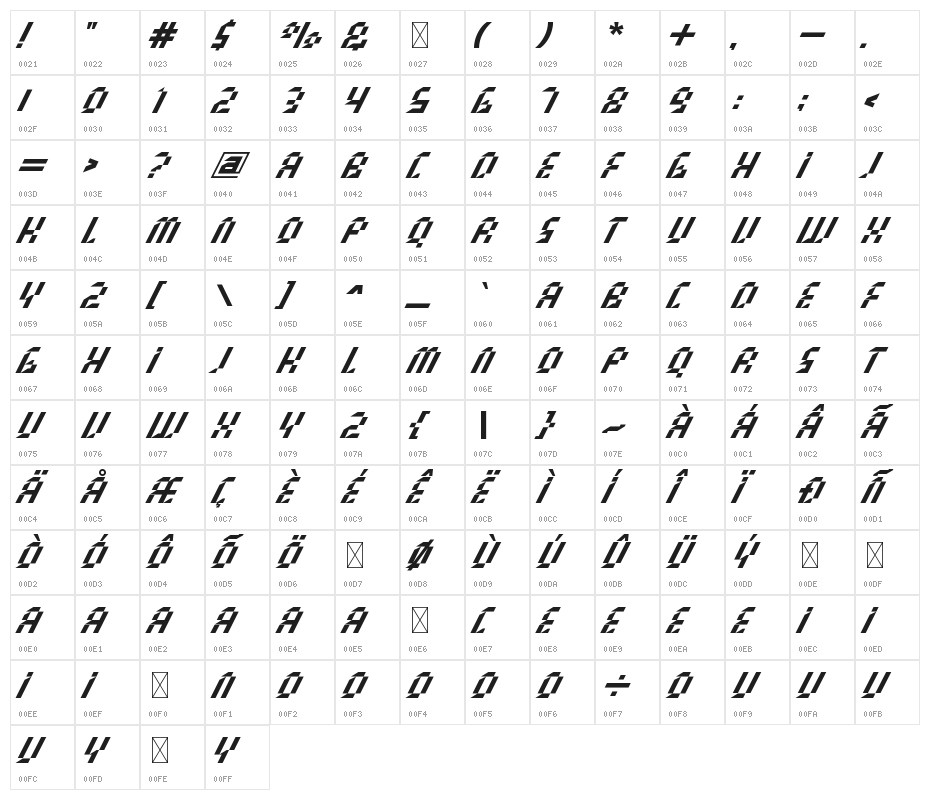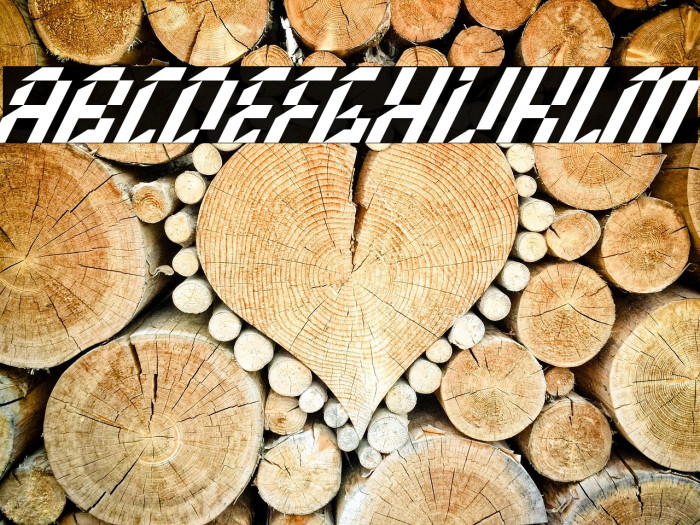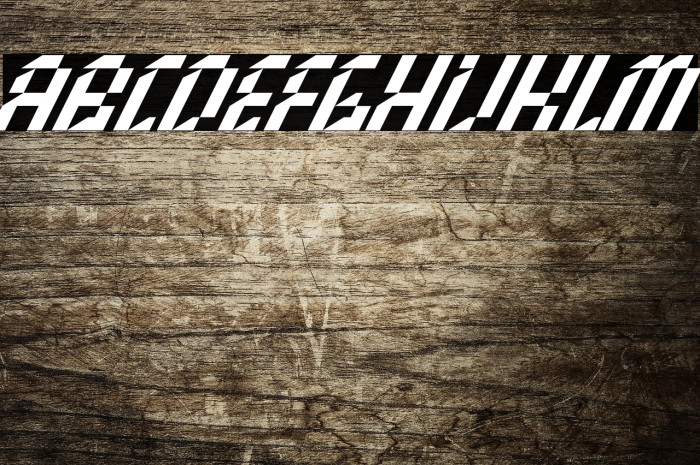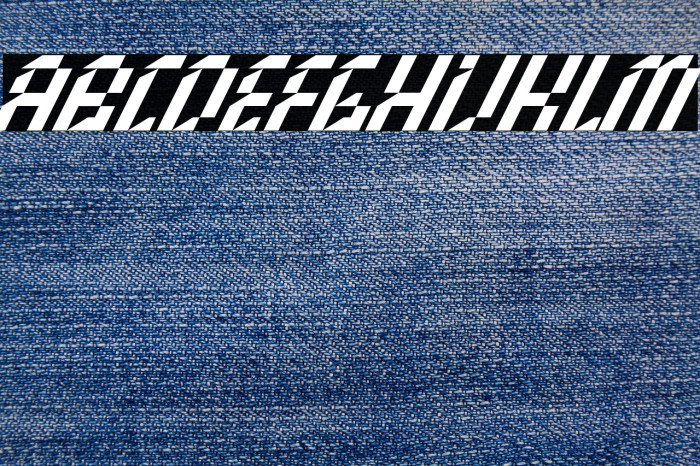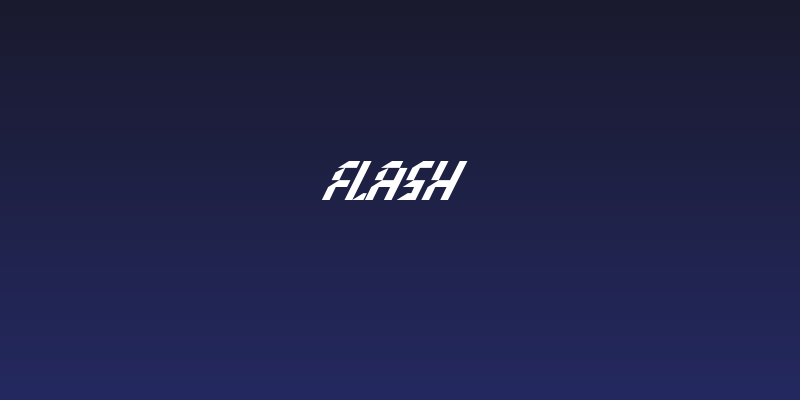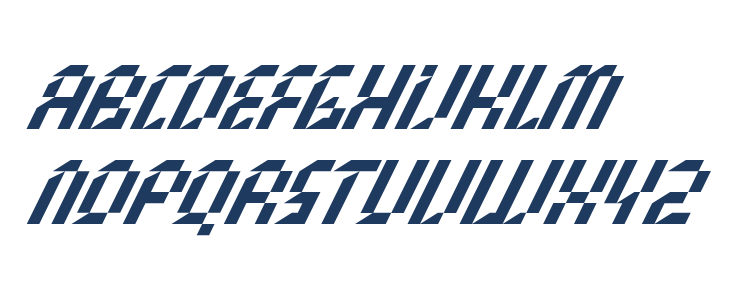
Flash Font
Flash Description
This font features a bold, angular design with a futuristic and dynamic appearance. The characters are sharply cut with a distinct slant, giving a sense of motion and speed. The uppercase and lowercase letters maintain a consistent style, with strong geometric shapes and sharp edges. The numbers and special characters follow the same design principles, ensuring uniformity across the font. The overall look is modern and edgy, suitable for projects that require a strong visual impact.
| Proposed Projects | Ideal for sports branding, video game titles, sci-fi movie posters, and dynamic logo designs. |